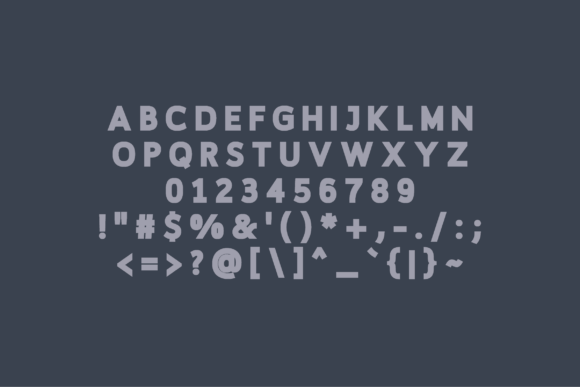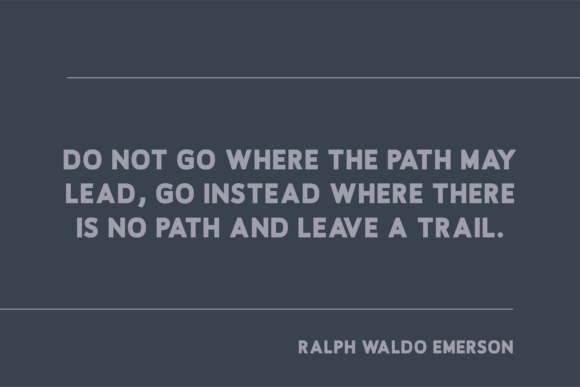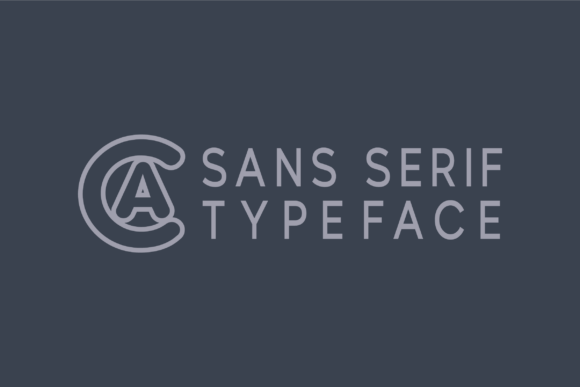
Introducing Flourish: The Modern Sans Serif Typeface That’s Taking Design by Storm
I’ll never forget the time I was working on a wedding invitation project, and my client asked for a font that was both elegant and modern. I scoured the internet, tried out dozens of fonts, but nothing seemed quite right. That was until I stumbled upon Flourish, a game-changing sans serif typeface that’s been a staple in my design toolkit ever since.
As designers, we’ve all been there – stuck with a font that just doesn’t feel right. But what if I told you that Flourish could be the solution to all your typography woes? This stunning sans serif font is perfect for logos, weddings, invitations, quotes, advertisements, print, magazines, and more!
What I Love About Flourish ✨
- ✅ Extremely versatile: perfect for a wide range of design projects
- ✅ Clean and modern design: perfect for minimalist designs
- ✅ Comprehensive character set: includes upper characters, numbers 0-9, and a range of punctuation and symbols
- ✅ Easy to read: even at small font sizes
- ⚠️ Some users may find the font too similar to other sans serif fonts
- ⚠️ Limited availability of stylistic alternates (but still plenty to work with!)
One of the best things about Flourish is its range of OpenType features and glyphs. Here are a few tips for getting the most out of these features:
- Use ligatures to add a touch of elegance to your design
- Experiment with stylistic alternates to add some extra personality to your text
- Don’t be afraid to get creative and try out new combinations of glyphs and OpenType features
Flourish was designed with the modern designer in mind. With its clean lines, elegant curves, and comprehensive character set, it’s the perfect font for anyone looking to add a touch of sophistication to their design. Whether you’re working on a wedding invitation or a brand identity project, Flourish is sure to impress.
Q: What type of projects is Flourish best suited for?
A: Flourish is an extremely versatile font that’s perfect for a wide range of design projects, including logos, weddings, invitations, quotes, advertisements, print, magazines, and more!
Q: Does Flourish come with any OpenType features?
A: Yes, Flourish comes with a range of OpenType features, including ligatures, stylistic alternates, and glyphs. These features can be accessed in compatible design software like Adobe Photoshop and Illustrator.
Q: Is Flourish easy to read?
A: Yes, Flourish is designed to be easy to read, even at small font sizes. Its clean lines and elegant curves make it perfect for body text and headlines alike.